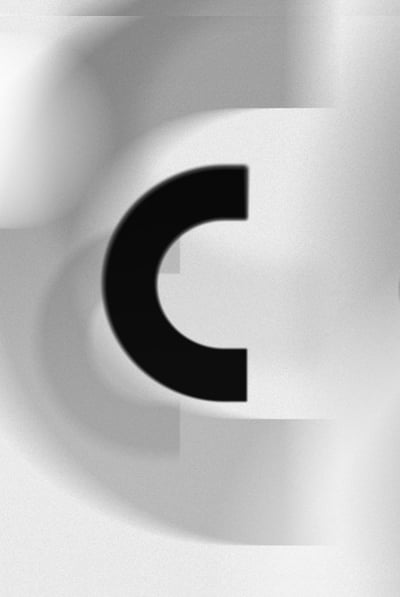
C in Different Fonts, Styles, and Text Effects
Let's explore the letter C in different font styles and take a look at some creative ways to design a single letter.
In this article, we want to ignite your creativity by designing the letter C in different font styles. This is a great opportunity for designers to explore different C font styles, text effects, and even color schemes.
Let's get started with different fonts for the letter C paired with various effects:
1. The Letter C in Different Fonts: Striped Text Effect
For this letter C in different fonts, I chose Noir Pro, a C font style that has a big family. With 12 fonts, this geometric sans serif works for display and body copy. The thicker weight is paired with a Striped Text Effect that mimics a stacked graphic as a sticker. This pack contains several effects that are fully editable with Adobe Illustrator.
2. The Letter C in Different Fonts: Playful Letters Text Effect
Spot is an exclusively all-caps font for display purposes. The font comes with a single weight but in four styles to create outstanding logos. To bring in the fun for this C letter style font, I chose the Playful Letters Text Effect. With just a few clicks, this bubble cartoon effect brings the party vibes to your projects!
3. The Letter C in Different Fonts: Smoke Text Effect
This mystical Smoke Text Effect is out of this world, perfect for the C letter in a stylish font. The add-on creates wobbly characters in a thick cloud of smoke that makes for awesome eye candy. Here it's paired with Mriya Grotesk, a geometric sans serif typeface that comes in four weights with their italic versions.
4. The Letter C in Different Fonts: Flaky Layered Effect
For this C in various fonts, I explored Hartone Softed, a rounded and soft sans serif font that communicates friendliness. This large display font is perfect for logos or editorial pieces. I paired the font with a Flaky Text Effect that creates the effect of paper peeling off a surface. The layers are fully editable, so you're one step away from designing amazing posters.
5. The Letter C in Different Fonts: Gold Foil
Next letter C in different fonts. Sabarian is a handwritten font that has a beautiful, natural, and dramatic movement. Now we have a C letter in a stylish font to attract attention. The pack contains standard glyphs that can help you create an even more natural flow with the different characters.
The Ultimate 1001 Text Effect is perfect for exploring multiple outcomes at once. One of them is Gold Foil, a super realistic threaded letter C that's the perfect combination for business card mockups.
6. The Letter C in Different Fonts: Illuminating Light Text Effect
Barongs is a condensed and tall typeface suitable for display purposes. The font comes in two styles, regular and oblique. I paired it with the Illuminating Light Text Effect, which features a light that shines from behind the letters, giving it the perfect dramatic effect for this alphabet C in different font styles.
7. The Letter C in Different Fonts: Neon Lights Text Effect
Let's score a home run in this C in various fonts article with this vintage-inspired typeface. Groches is a geometric font with clean lines that makes it visually strong. The font comes with two styles, clean and distressed. Here, it's paired with a Luminous Neon Text Effect, the perfect combination. The file is easy to use with organized layers, and in just a few clicks you can have an awesome banner.
8. The Letter C in Different Fonts: Space Text Effect
The Space Text Effect creates an awesome visual play that can kick your project up a few notches. The PSD file can easily create repetition and blur that results in a trippy image. I paired it here with Marteks—this C letter style font is a sans serif type that communicates luxury and modernity. The font offers multilingual support—bonus!
9. The Letter C in Different Fonts: Glow Neon Lettering Text Effect
To produce a letter C in fonts that give maximum impact, let's try HYPOP. The characters have different widths, making it a great display font for posters, logos, and social media. I paired the font with a Tron-inspired effect, Neon Lettering Text Effect. Achieve this epic Cyberpunk play of lights with this easy-to-use add-on.